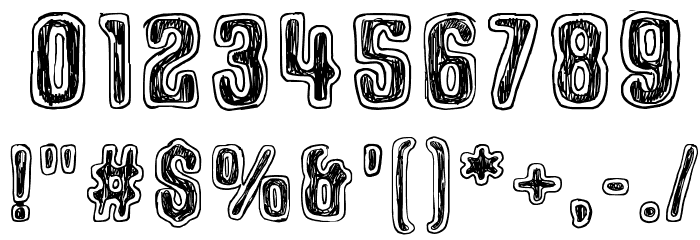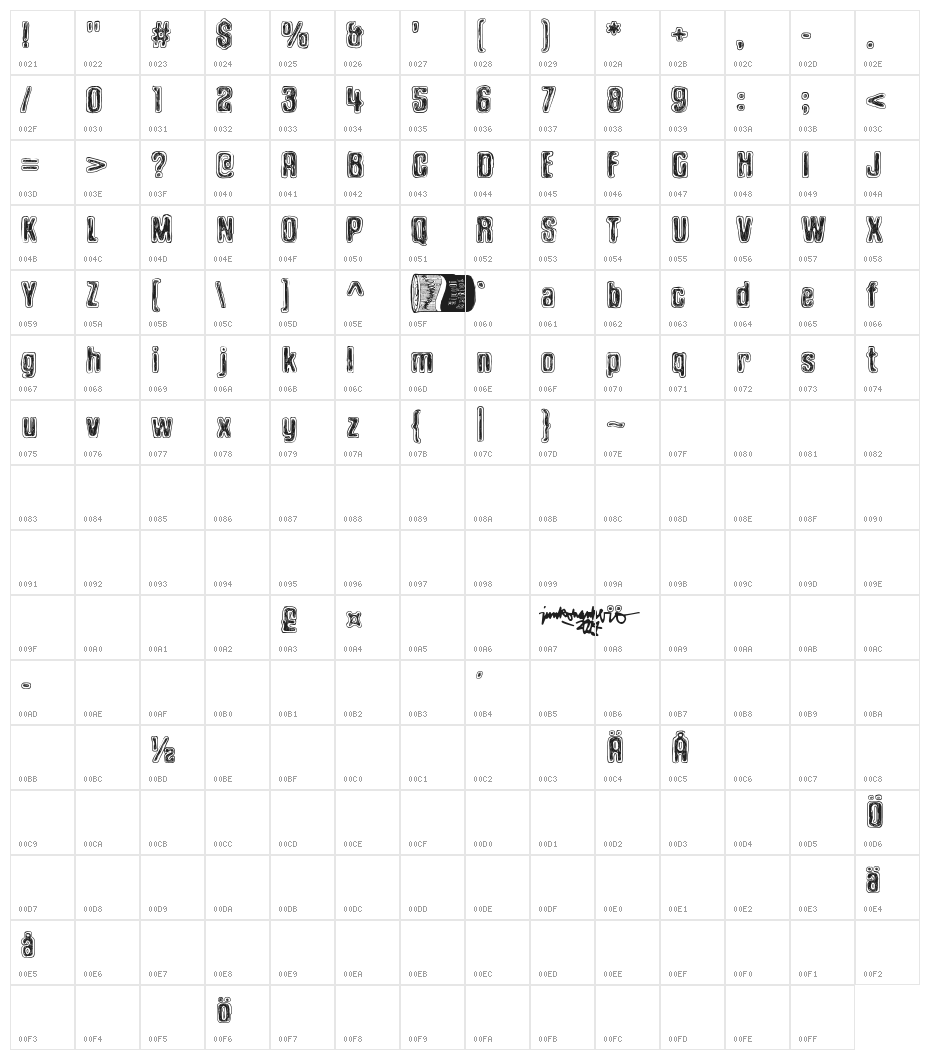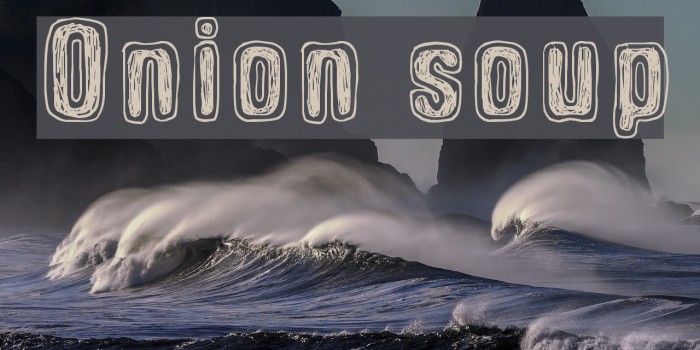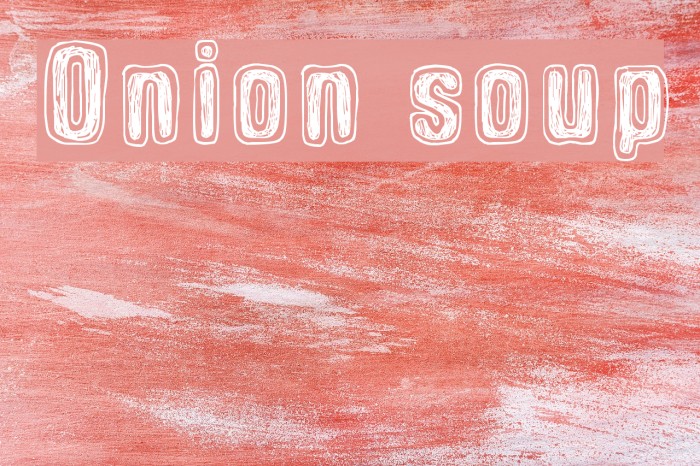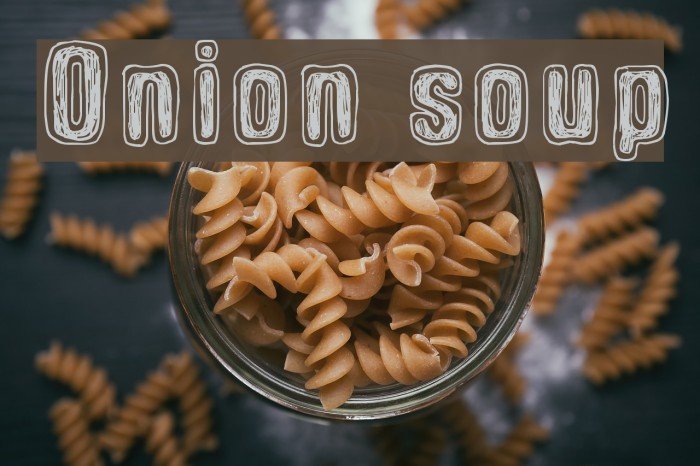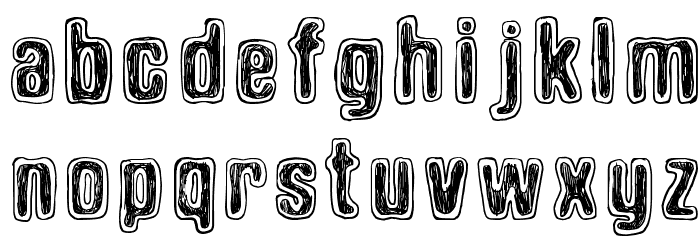
Onion soup Font
Onion soup Description
This font features a playful and artistic design, characterized by its hand-drawn, sketch-like appearance. Each character is outlined with a bold, uneven stroke, giving it a textured and organic feel. The letters are slightly irregular, adding to the whimsical and informal style. The font maintains a consistent height across uppercase, lowercase, and numeral characters, ensuring readability while retaining its unique charm. Special characters are also included, each with the same distinctive hand-crafted look. This font is ideal for projects that require a creative and informal touch.